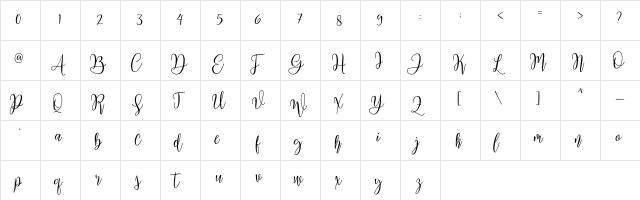
Mariposa Script Demo Regular
Design Context for Mariposa Script Demo Typeface
Mariposa Script Demo flows with the natural rhythm of handwritten lettering, making it ideal for designs that call for warmth and personal expression.
Font Pairing: Combine Mariposa Script Demo with a simple geometric sans for maximum contrast — the tension between flowing curves and clean structure is a classic typographic pairing.
Pro Tip: Pair Mariposa Script Demo with a clean sans-serif for supporting text. The contrast between fluid script and geometric structure creates an elegant typographic hierarchy.